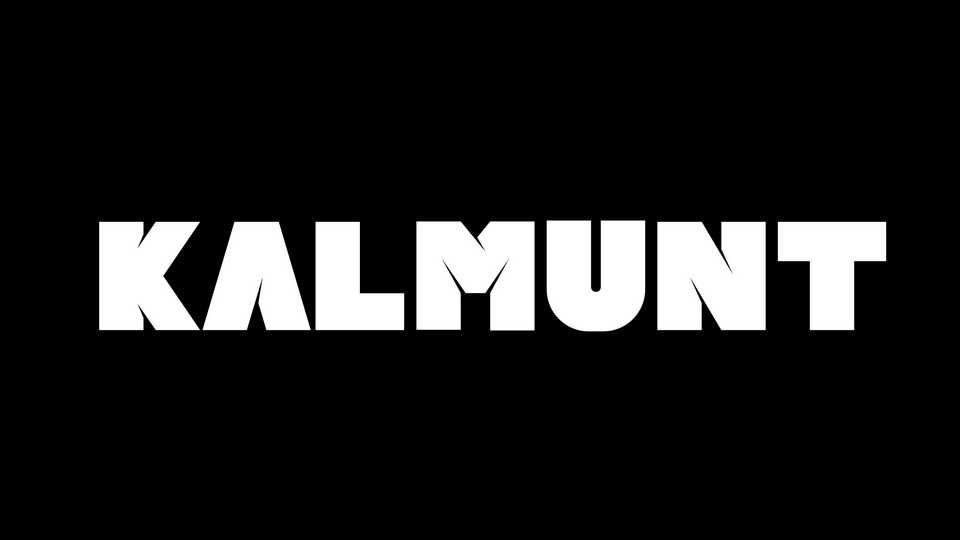
Download Kalmunt font, a typeface which is probably heavier than ultrafett. Kalmunt is a sans serif display font and currently under construction.
Designer: Johannes Wipper